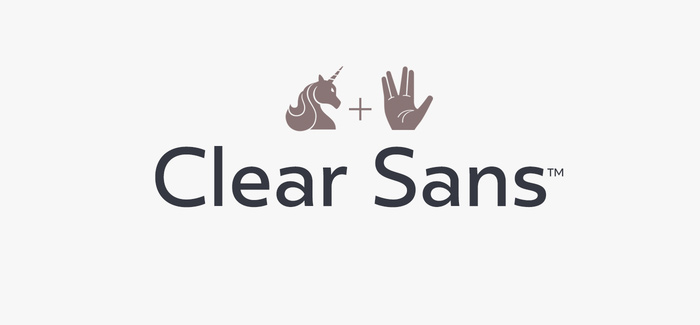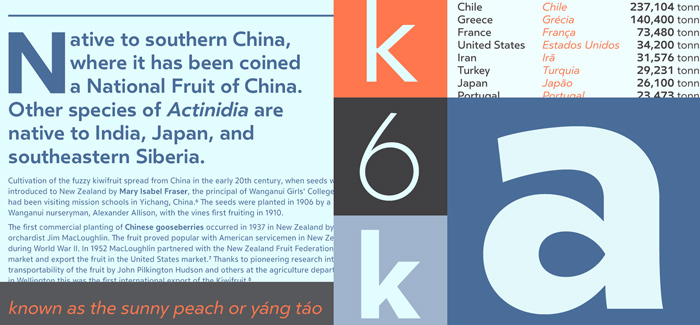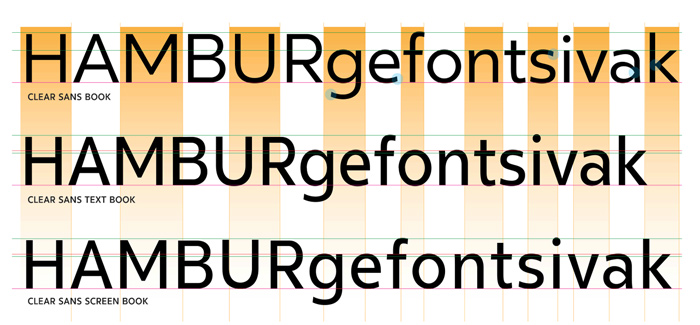
Clear Sans font
Clear Sans font is a hot new family by Positype. Originally designed back in 2008 Clear Sans is now dramatically improved and expanded into 40 separate fonts – regular and italic. Existing Aaux Next, Akagi Pro and Halogen are the typographic roots of Clear Sans and their influence is quite visible in this new font family. It’s great to see here really long list of open type features but what is probably most important about Clear Sans is its enhanced compatibility to web design, mobile applications and electronic books. Positype state that Clear Sans Text and Screen fonts were developed utilizing larger x-heights, space-saving widths, logical (and simplified) weight offerings. Be it print or electronic media Clear Sans is probably one of your best type partners around. It’s looking contemporary and elegant, designed with a lot of attention to details and own personality Clear Sans could be used for body text and headlines, posters and packages, books, book covers and stationary.
Designers: Neil Summerour
Publisher: Positype